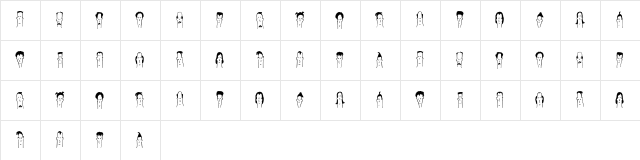
Headed Regular
Design Context for Headed Typeface
Headed is a composed and adaptable typeface that performs quietly and consistently across a wide range of design contexts.